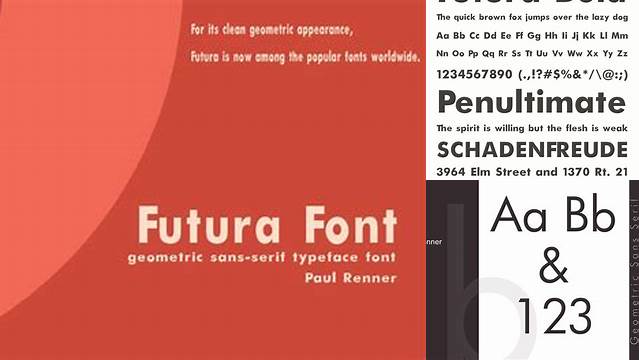
Hey there, design enthusiasts! Ever wondered how to snag the iconic Futura font without breaking the bank, especially for those commercial projects? Well, you're in the right place. We're diving deep into the world of Futura font free commercial use, exploring how you can access this timeless typeface legally and effectively. Let's face it, Futura is more than just a font; it's a design statement. Known for its clean lines and geometric shapes, it's been a go-to for brands and designers alike. But how do you ensure you're using it correctly, particularly when your work is for profit? This guide is your ultimate resource, providing all the insights you need to navigate the complexities of licensing and usage. So, buckle up, and let's get started on your journey to mastering Futura font free commercial use!
H2: Understanding Futura's Allure: Why It's a Design Classic
Futura isn't just another font; it's a design legend, a symbol of modernity and efficiency. Its clean, geometric shapes, born from the Bauhaus design principles, have made it a favorite across various industries. This section will delve into what makes Futura so special, exploring its historical significance and its continued relevance in contemporary design. The beauty of Futura lies in its simplicity and versatility. Unlike ornate or overly stylized fonts, Futura's clean lines provide a sense of clarity and order, making it incredibly readable and adaptable to a wide range of applications. From print to digital, from logos to long-form text, Futura effortlessly lends itself to any design need. Its presence often indicates a brand's dedication to clarity and a forward-thinking approach. Futura's appeal extends beyond its visual characteristics. It resonates with people because of its timelessness. It’s a font that speaks across generations, maintaining its relevance in a world of constantly evolving design trends. This enduring appeal is a testament to the font's well-crafted design and its ability to convey a sense of professionalism. When you choose Futura font free commercial use, you're not just selecting a typeface; you're aligning your brand with a legacy of design excellence. This section also covers how Futura has been used in iconic branding throughout history. Think of the logos you see daily; many use Futura for their simple yet effective branding. This font is perfect to display professionalism and modernity. If you want your company to be thought of as modern and trustworthy, Futura is your go-to font. Furthermore, we will analyze why its geometric design is still considered modern today, despite its origins in the early 20th century, when Futura was originally created. This analysis is crucial to understanding its value in modern design. It’s because of its timeless quality that you will want Futura font free commercial use. The ability to adapt to different designs is why Futura remains a cornerstone in the world of typography. Its simplicity and elegance have made it ideal for various applications, including branding, editorial design, and web design. If you want a font that is reliable and simple, it is Futura.
Let's delve deeper into Google Fonts and the excellent alternatives available when searching for Futura font free commercial use. Google Fonts is a goldmine for designers, offering a vast collection of open-source fonts. Although you won't find the exact Futura font there, the platform offers several fonts with a similar aesthetic. These alternatives can be a great substitute for your projects. Some excellent alternatives to consider include Montserrat and Open Sans. These fonts share Futura's clean, geometric look. They are perfect for professional and modern designs. They also offer various weights and styles. This variety makes them suitable for various applications. Another font to consider is Raleway. Raleway has a similar feel to Futura, making it great for headers and body text. Its versatility makes it suitable for both print and digital designs. When choosing a Google Font, you can be confident in its commercial usage rights. All fonts on the platform are available under the open-source SIL Open Font License, making them free to use in any project, including commercial ones. The SIL Open Font License allows for easy and legal use of the fonts in your commercial projects, without the need for additional fees or licensing agreements. Always ensure that you are checking the specifics to ensure that everything aligns with your use. Because you are using Futura font free commercial use, always make sure the fonts are compatible. While these Google Fonts offer excellent alternatives to Futura, they also allow for unique touches in your designs. Experimenting with different weights and styles allows you to find the best fit for your needs. Therefore, the choice of a Google Font is a great option when looking for Futura font free commercial use. Remember to always check the specific font's page on Google Fonts for specific usage details. By leveraging Google Fonts and its alternatives, you can access a world of design possibilities without breaking the bank. It is the perfect platform to start when you're looking for options.
H2: Evaluating Alternatives: Similar Fonts with Commercial Licenses
When you can't find the exact Futura for Futura font free commercial use, exploring alternatives is the next best step. This section explores fonts that share Futura's characteristics and come with commercial licenses, allowing you to achieve a similar aesthetic without legal concerns. One great option is Montserrat. Its clean geometric lines, like Futura, make it excellent for various design projects. It's versatile and readily available with commercial licenses from numerous foundries. Another great option is Lato. Designed with a strong geometric base, it's ideal for both headers and body text. It's known for its readability and professional look. Furthermore, you might want to look at Nunito. It's a well-balanced, rounded sans-serif font. It is known for its readability and is a perfect choice for digital design. When evaluating alternatives, consider the font's weight, style, and overall feel. Your choice should align with the needs of your project. Always prioritize fonts with clearly stated commercial licenses. This allows you to avoid any legal issues. Carefully review the font's licensing terms to ensure they meet your requirements. Some licenses restrict the number of devices or the types of applications the font can be used in. If you're looking for Futura font free commercial use, always be certain of the license and usage. Another important thing to look out for is the font's design and legibility. Choose fonts that are suitable for various purposes, from website headers to printed materials. This is to make sure the font fits your needs. When choosing a font alternative, make sure the font is easy to read and professional-looking. Choosing alternatives offers you a great way to be creative while following the law. Always make sure you're using fonts legally. Your research will save you from any legal problems. This is the most important part of Futura font free commercial use.
H3: Key Features to Look for in Futura-like Fonts
When searching for fonts that resemble Futura, understanding what to look for will help you find the perfect match. This section highlights the key characteristics that define Futura and how to identify similar fonts, particularly when you're aiming for Futura font free commercial use. Futura is defined by its geometric forms and clean lines. The letters are mostly based on circles, triangles, and squares. When looking for alternatives, start by observing the shapes of letters. Look for fonts with simple, unadorned letterforms. The characters should have clear and concise design. The best alternatives often have a similar balance between aesthetics and readability. Futura's geometric design gives it a modern feel. It is a hallmark of Futura's design. The evenness and symmetry are a must. Look for alternatives that share this characteristic. Weight and spacing are also crucial. Futura comes in many weights, from light to bold. Choosing an alternative with different weights allows for design versatility. The spacing is another essential factor. Ensure the font's spacing is consistent and visually appealing. This is to avoid the text looking cramped or disjointed. Always confirm the font's licensing terms before using it. Knowing the license is essential when you're looking for Futura font free commercial use. Pay attention to the details when selecting a font. These details make a big difference in how the font will look. Considering these features when choosing an alternative font allows you to make the best choice for your design. This ensures that it will look professional and suitable. The goal is to find an option that is similar to Futura while ensuring your project meets all the legal requirements. Your diligence will help you to find the right font for your project. Keep in mind that understanding the key characteristics will improve your project.
H2: Commercial Use Scenarios: Practical Applications and Restrictions
Knowing the practical applications and potential restrictions when you're using Futura font free commercial use is essential. This section will provide insights into the various scenarios where you can use Futura or similar fonts in commercial projects and highlight common restrictions. When you're using Futura font free commercial use, you will want to use it for branding. Futura's clean lines are a great option for logos, marketing materials, and website designs. Always make sure that the license allows the use of the font in your logo. If you are unsure, you can always ask the license creator. Another application to use Futura font free commercial use is in website design. You can use the font for headers, body text, and other design elements to enhance the appearance and readability of your website. Make sure your license covers embedding the font in your site. When using Futura font free commercial use in printed materials, you must follow all usage guidelines. These can be for marketing materials, business cards, and packaging. Your license needs to cover print use. When dealing with digital advertising, you can use Futura font free commercial use in social media posts and online ads. The license should cover its use in the digital space. There may be restrictions to consider. Some licenses may restrict the use of the font in certain products or services. Always read the license agreement. Always be wary of the number of allowed users or devices that you can use the font on. Licensing is essential, and violating the terms could lead to legal problems. You must follow the terms of the license to ensure your compliance. Always review the license for the font. Your project must be legally compliant when you use the font. There are a lot of things to keep in mind when using Futura font free commercial use, so make sure you are aware of all the restrictions.
H3: Branding and Logo Design: Using Fonts for Impact
Choosing the right font is a huge deal when it comes to branding and logo design. When you’re considering Futura font free commercial use or similar fonts, understanding how to use them effectively is crucial for creating a lasting impression. Futura is known for its simplicity and geometric forms. This makes it a good choice for brands looking for a modern and professional look. It's perfect for logos, marketing materials, and website designs. You want to ensure that the fonts align with your brand's personality. Futura's versatility makes it ideal for many industries, from tech to fashion. You can create a timeless logo using Futura. Because of its versatility, it can be used with other design elements and colors. When you choose to use Futura font free commercial use, consider the font's weight and style. Lighter weights are great for a sophisticated feel. Bold weights are a good option to grab attention. Always verify the license for the font to make sure it allows for commercial use. Commercial licenses ensure you can use the font without legal issues. Always keep in mind the license's specifics, such as usage restrictions. Your brand can create a strong and consistent visual identity using Futura. This consistent visual language is essential for recognition. When working with a design agency, make sure they're well-versed in font licensing. Clear communication with your agency is the best way to make sure you're following the rules. When choosing a font for your brand or logo, you're making an essential decision. Make sure you know the license of the font. This will allow your brand to have a great image. This is the key to successful Futura font free commercial use.
H2: Avoiding Legal Pitfalls: Best Practices for Font Usage
Navigating the legal side of font usage can be tricky, but it’s essential. This section will cover best practices to avoid legal problems. This is especially important when you're looking at Futura font free commercial use. One of the most important things to do is carefully review the font's license. This step ensures you understand how you can use the font. Make sure the license grants you permission for commercial use, especially if your project involves generating income. Pay attention to details such as the number of devices or users allowed to use the font. Be certain the font can be used for the different applications. If a license isn't clear, don't guess. Instead, contact the font designer. This is to confirm how the font can be used. If you want to use a font for multiple purposes, consider a more comprehensive license. You must keep a record of your licenses. This helps you in case of future questions. Always make sure you are downloading fonts from trustworthy sources. This will minimize the risk of using unlicensed fonts. Be wary of downloading from unauthorized websites. Regularly updating your fonts is also important, especially if the license changes. Be certain you stay informed about legal changes. Following best practices is essential when using Futura font free commercial use. Doing so allows you to avoid legal trouble. Remember that ignorance of the law is not an excuse. By following these steps, you can ensure you're using fonts legally and ethically.
H3: Common Mistakes to Avoid with Font Licensing
When using fonts, especially in commercial settings, it’s easy to make mistakes. Let's look at common pitfalls to avoid, especially when exploring Futura font free commercial use. One common mistake is ignoring the licensing terms. People often download fonts and assume they can use them freely. It's crucial to read the license. Another mistake is using a font without a commercial license. Many free fonts are for personal use only. If your project generates revenue, you must have the right license. A third mistake is assuming that a font is free if it is available for download. Check for commercial use. Don't be tempted to use fonts from unreliable sources. Unauthorized sites might offer fonts that violate copyright laws. Another common error is misinterpreting license terms. Licenses can be complex. Reach out to the font designer for clarification. If you modify a font and don't have the rights, you could run into problems. Many licenses don't allow modifications. When sharing a font, check the license restrictions. You cannot distribute a font that you don't own. It is important to understand the use of the font to protect your brand and designs. It is also important to avoid these mistakes when you are pursuing Futura font free commercial use. Educating yourself about licensing is essential for designers and businesses. This understanding prevents legal issues and maintains ethical design practices.
H2: Enhancing Your Designs: Typography Tips and Tricks
Once you've got your font sorted, how do you make the most of it? This section offers practical tips and tricks to elevate your designs when using Futura font free commercial use or other similar fonts. First, master font pairing. Combining fonts can create visual interest. You can use Futura with a contrasting font. The goal is to create visual harmony. This also improves the legibility of your designs. The use of white space is also important. Give your text room to breathe. This improves readability. When you are looking for Futura font free commercial use, you want to use the correct font weight. Different weights have different effects. Using the wrong font can make your design confusing. Adjusting the kerning, leading, and tracking is essential. These are key elements that can dramatically change how your text looks. You can make the text look better by spacing out the letters. Always consider the context of your design. The font choices should match the content. Your design should be suitable for its purpose. Testing your design on multiple devices is essential. Make sure your design is readable on various screens. It’s also essential to choose colors that complement your font. Think of the color scheme of your design. Choosing colors is just as important as choosing your font. Typography is a key component of design. You will be able to enhance your designs by following these tips. Always keep in mind these tips when you’re using Futura font free commercial use.
H3: Font Pairing Strategies: Combining Futura with Other Fonts
When you're using Futura font free commercial use or similar fonts, understanding font pairing can take your designs to the next level. Font pairing is the art of combining fonts to create visual harmony and enhance readability. When pairing Futura, a geometric sans-serif font, the goal is to find a font that complements its clean lines. One effective approach is to pair Futura with a contrasting serif font. A classic choice is Georgia or Times New Roman. These fonts bring a sense of sophistication to the design. For a more modern look, consider pairing Futura with a sans-serif font. Fonts like Open Sans or Lato can work well. You can create a balanced and appealing composition with these combinations. Experiment with different weights and styles within the same font family. This creates visual contrast without clashing. Always ensure the pairing enhances readability. You should aim for clarity in your text. Consider the font's overall style. For example, pairing Futura with a bold, playful font can create a striking visual. Also, think about the purpose of your design. The font choices must align with the design. Think about how the fonts will work in the design. You also need to consider legibility, especially when you're using a font like Futura font free commercial use for long-form content. Always test your design on various devices and formats. Make sure your fonts are compatible. Therefore, using font-pairing strategies is essential for taking your designs to the next level.
H2: Font Resources and Tools: Leveling Up Your Design Workflow
This section will show you essential resources and tools that will streamline your design process when using Futura font free commercial use or any other font. First, you should consider font management software, such as Adobe Fonts or FontBase. These tools allow you to organize your fonts, making it easy to access and manage your fonts. These tools offer a great way to streamline your design workflow. Next, using font pairing tools is useful. These tools suggest font combinations. These tools will help you find the right fonts for your project. Always make sure you are using commercial fonts when you are looking for Futura font free commercial use. Adobe Photoshop and Illustrator have built-in font tools, making it easy to install and preview your fonts. You can also look for online resources, such as font foundries and design blogs, for inspiration and education. These resources will help you stay on top of design trends. You should also test your designs across multiple devices. This ensures that your designs are readable on any screen. These are essential resources and tools to enhance your design workflow. Using these resources will allow you to make the most out of your fonts. Also, make sure to learn about the legal side of Futura font free commercial use.
H3: Utilizing Font Management Systems for Efficiency
To streamline your design workflow, font management systems are essential. These tools help you organize and manage your fonts, especially when using Futura font free commercial use or other fonts. Software like Adobe Fonts, FontBase, and Suitcase Fusion offers the tools necessary to organize your fonts. You will be able to quickly access your fonts. You can also activate and deactivate fonts as needed. This will keep your workspace clean and clutter-free. Font management systems also allow you to create font libraries. This helps you to categorize your fonts. With font management, you can create a collection of your favorite fonts. This will speed up your design process. These systems often offer features like font previews, making it easier to visualize your fonts. These previews will allow you to see the font in real time. You can easily compare fonts and choose the best option for your project. Many font management systems integrate directly with design software. This will streamline the design process. This allows for seamless workflow. Therefore, with a font management system, you can efficiently organize your fonts. Also, make sure you are aware of the legal side of Futura font free commercial use. These systems will allow you to easily find your desired fonts.
H2: The Future of Typography: Trends and Innovations
Let's look at the future of typography, as this will impact how you use Futura font free commercial use and other fonts in the coming years. There's a growing focus on variable fonts. Variable fonts will allow you to adjust the weight, width, and style within a single font file. This offers great flexibility and allows for unique design. The rise of personalized design is another trend. You can create custom fonts. This will provide a unique branding experience. The influence of AI in design is also increasing. AI can generate font pairings. The technology helps designers with font selection. This saves time and improves design. Also, there is a movement towards inclusive typography. The goal is to make fonts that are accessible for all users. There is a growing need for fonts that support multiple languages and character sets. This trend reflects the global nature of design. When it comes to finding Futura font free commercial use, always keep in mind the current trends in typography. The use of motion typography is also rising. Animation adds a new dimension to design. These trends will affect how designers use and select their fonts. Always stay aware of the future of typography. Your knowledge will help you make better design choices. Adaptability and continuous learning are key for any designer.
H3: Variable Fonts and Adaptive Design: Shaping the Future
Variable fonts are transforming typography, offering unprecedented flexibility and control. This section explores how variable fonts work and their implications for design, especially when using Futura font free commercial use or similar fonts. Unlike traditional fonts, variable fonts contain multiple variations within a single file. This means you can adjust the weight, width, and style of the font. This allows for a flexible design. Variable fonts are great because they adapt to different screen sizes and devices. This improves the overall user experience. Variable fonts offer a high level of customization. Designers can create designs that are specific for any project. You will save space and improve the load times on websites. These are essential benefits for web design. Variable fonts support a wide range of design possibilities. They allow designers to add unique effects to their design. They are also ideal for creating dynamic and interactive typography. As the technology behind variable fonts evolves, more designers will adopt them. When you want to pursue Futura font free commercial use, you can create a custom look with the help of these fonts. The ongoing innovations and changes in variable fonts allow you to make your designs unique. Variable fonts represent a fundamental shift in how designers can manipulate and use their fonts.
H2: Case Studies: Successful Commercial Projects with Futura (or Similar Fonts)
Let's look at some examples of commercial projects that have successfully used Futura or similar fonts. This helps illustrate best practices and provide inspiration, especially when you're considering Futura font free commercial use. The iconic logo of Volkswagen is a great example. Futura's clean lines and modern look have been the foundation of the Volkswagen brand identity for many years. This shows the timelessness of Futura. Also, the logo of the Swiss airline, Swiss International Air Lines, has an extremely professional look thanks to its use of Futura. The font gives a sense of order and efficiency. The website design of the fashion brand, Off-White, has the use of a font similar to Futura. They used their font to create a sleek and high-end design. In print advertising, companies such as Louis Vuitton used Futura for their marketing. This enhanced the message's readability and visual appeal. When you're searching for Futura font free commercial use, you can follow these examples to help you find the best font for your needs. These case studies show how the choice of a font can affect the brand. Choosing the correct font can strengthen your brand and image.
H3: Analyzing Successful Brand Applications of Futura
When considering Futura font free commercial use, studying how successful brands use Futura can be incredibly beneficial. These analyses provide insights into how to effectively integrate the font. The first notable example is the Volkswagen logo. Futura's geometric simplicity communicates a sense of reliability. It also aligns with the brand's emphasis on engineering excellence. Another example is the use of Futura by Swiss International Air Lines. The font evokes a sense of professionalism. The airline has a clean and modern look, which is exactly what their brand wanted. When you use Futura in your projects, always remember the brand's values. It is very important that the message aligns with the company. In advertising, the use of Futura by Louis Vuitton is another great example. This is to create a luxury feel. The brand uses Futura to display the high-end quality of its products. These brands use Futura in different ways. Futura is great because it can be used for a wide range of purposes. Their success shows how a well-chosen font can strengthen a brand. You will be able to learn a lot from these successful brand applications.
H2: The Intersection of Design and Law: Staying Compliant
Understanding the intersection of design and law is essential, particularly when using Futura font free commercial use. This section explores how to ensure your design work complies with legal requirements. Knowing font licenses is very important. Always make sure that the license allows for commercial use. Always respect copyright laws. This includes not using fonts without the right license. You must also understand the contract law. Understand the agreements and contracts related to your work. Understand trademark law. You should consider the implications of your design on brand identity. When you're choosing Futura font free commercial use, always prioritize legal compliance. Create and maintain records of all licenses. Consult with a legal professional for complex projects. By adhering to these principles, designers can ensure their work is both creative and legally sound. Always remember the legal implications when designing your project.
H3: Legal Considerations: Copyright, Trademarks, and Licenses
To stay on the right side of the law, understanding the legal aspects of design is essential, particularly when searching for Futura font free commercial use. The legal landscape encompasses copyright, trademarks, and font licenses. Copyright protects the creative work of designers. This includes fonts. You need a license to use a font. This license is an agreement that outlines the permissions for using the font. Trademarks protect brand names and logos. You have to ensure your font choices don't infringe on existing trademarks. Always respect copyright law. Always make sure you are using a font that is licensed for commercial use. By understanding these legal considerations, you can create a great design and stay in legal compliance. When you are finding Futura font free commercial use, you will have to consider all the legal considerations.
H2: Future-Proofing Your Designs: Long-Term Considerations
This section explores how to future-proof your designs when using Futura font free commercial use or similar fonts, ensuring they remain relevant and legally sound for years to come. Always make sure the chosen font remains usable. Ensure the font continues to be supported by software and operating systems. Store your font licenses and design files safely. This will allow you to access them in the future. Regularly update your designs to align with current trends. Always keep an eye out for changes in licensing laws. Stay current with the most recent developments in typography. Future-proofing your designs is an ongoing process. Following these steps ensures your designs remain both aesthetically pleasing and compliant.
H3: The Longevity of Font Choices and Legal Documentation
To ensure the long-term value and compliance of your designs, consider the longevity of your font choices and the importance of legal documentation. When selecting a font, consider its timelessness and its continued relevance. Futura, for example, has remained relevant for decades. Ensure that you always have all your legal documentation. Always keep track of font licenses. This will help you avoid legal issues. You must store these licenses safely and accessibly. As technology and legal requirements change, you must update your designs. Always be ready to adapt. Therefore, consider the longevity of your font choices and the legal documentation. This is especially important when searching for Futura font free commercial use.
H2: Conclusion: Empowering Your Design with Futura and Legal Know-How